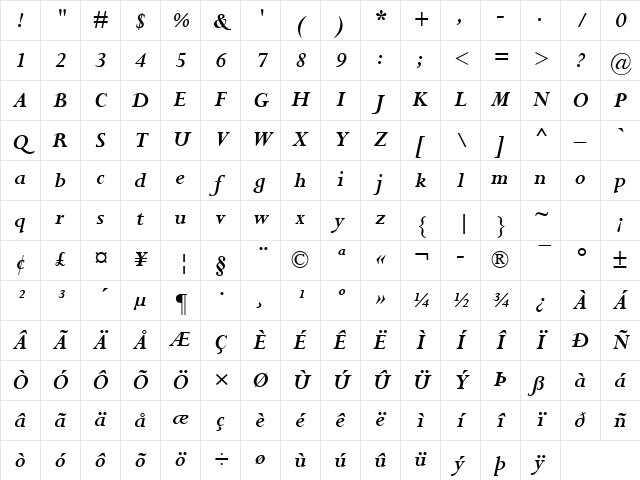
Complete Perpetua Bold Italic glyph index. Displaying only characters natively supported by Perpetua Bold Italic font.
Perpetua is a composed and adaptable typeface that performs quietly and consistently across a wide range of design contexts. The slanted form adds forward momentum and visual energy. Its bold stroke weight gives it real presence on the page.
Pro Tip: Use Perpetua for emphasis, pull quotes, and subheadings where its slanted energy can add rhythm to the layout.